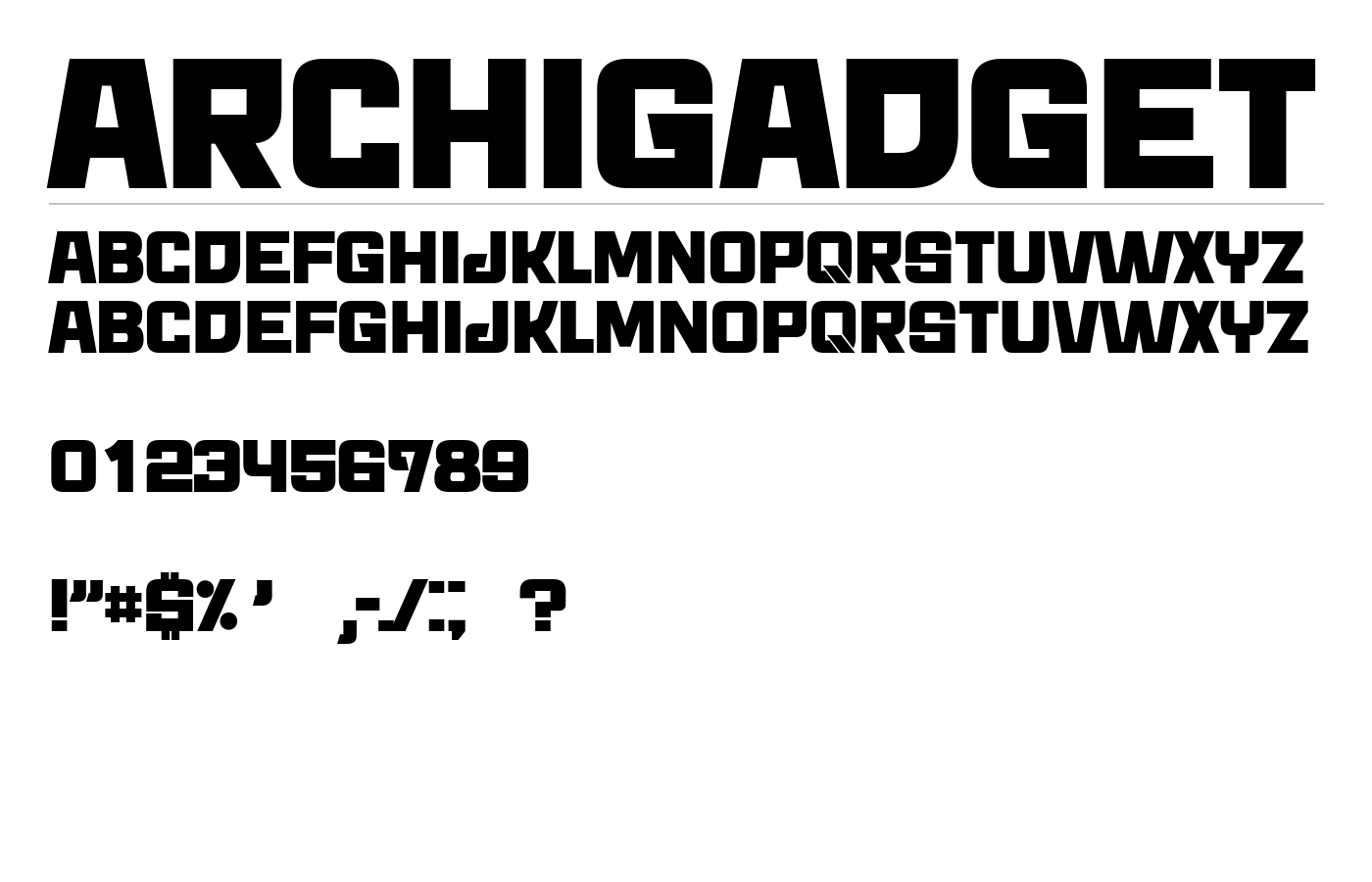
Archigadget is a bold, condensed sans serif font with a strong industrial and modern vibe. Its geometric shapes, tight spacing, and clean lines make it perfect for headlines, logos, and branding that demand a futuristic or tech-inspired look. This font stands out with its sharp, blocky letterforms, adding confidence and a sense of innovation to any design.
Archigadget Font
About Archigadget Font
| Font family | Archigadget Font |
| Designer | Vladimir Nikoic |